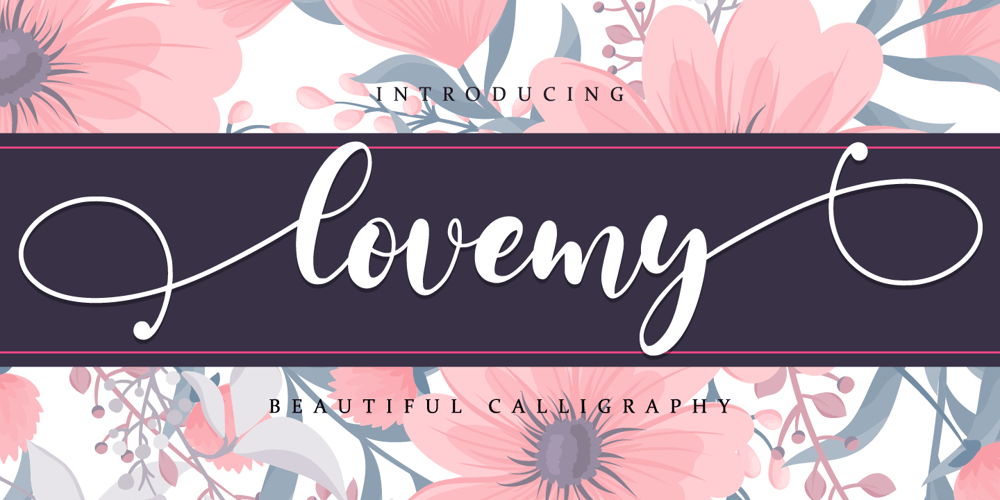
Lovemy Font Family was designed by Abdul Malik Wisnu and published by Almarkha Type. Lovemy contains 1 styles and family package options. Lovemy is a script font with a natural handwritten feel. It has lovely ligatures and alternates that are perfect for any creative design. This handmade font will make your design has a beautiful natural touch for each details. It is perfect for any design project as Invitation, logo, book cover, craft or any design purposes.This font is PUA encoded which means you can access all of the magical glyphs and swashes with ease! It also features a wealth of special features including alternate glyphs and ligatures.Simple installationsAccessible in the Adobe Illustrator, Adobe Photoshop, Adobe InDesign, even work on Microsoft Word. PUA Encoded Characters – Fully accessible without additional design software. Fonts include multilingual supportCheers!Thank You